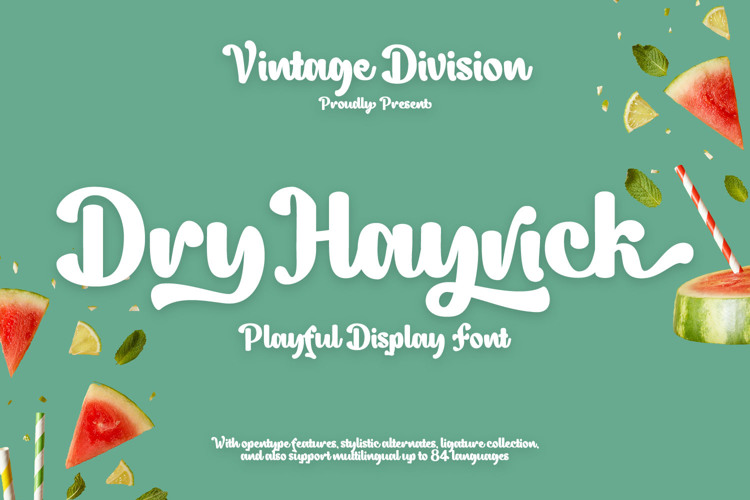
Dry Hayrick Font
Dry Hayrick is a display font which is created to fit in your designs. This is an excellent choice to add the right amount of playfulness. This custom-made font is specially designed to meet any of your needs and is absolutely the perfect choice for creating your logo, book cover, poster, t-shirt, branding, and advertisement.
Features:
• Ligatures
• Stylistic Set
• Swashes